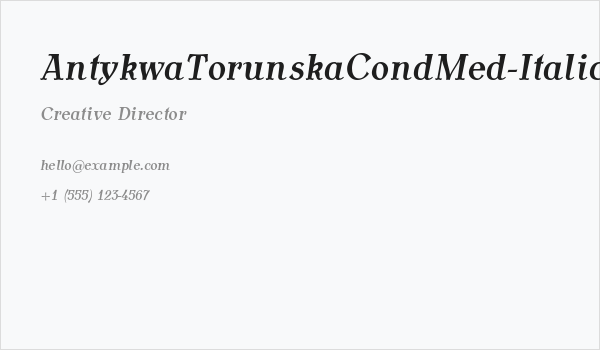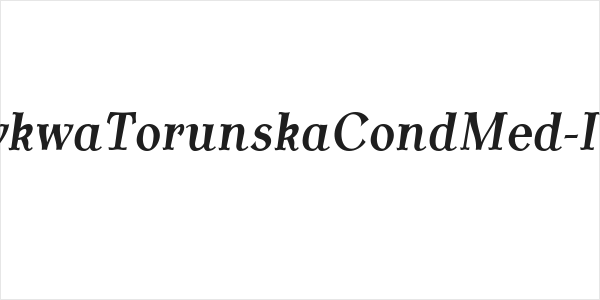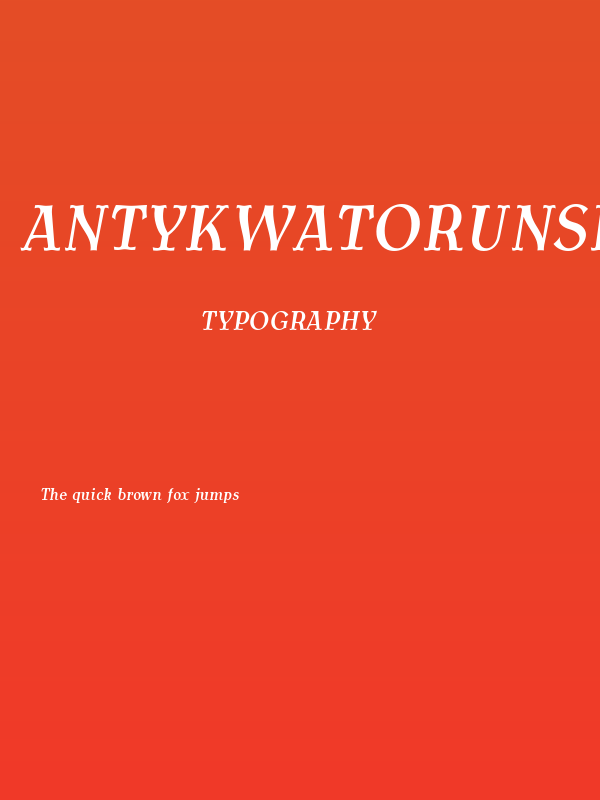
AntykwaTorunskaCondMed-Italic Font
AntykwaTorunskaCondMed-Italic Description
This font features a classic serif style with a condensed and italicized form, giving it a sophisticated and elegant appearance. The characters are well-defined with moderate contrast between thick and thin strokes, enhancing readability while maintaining a stylish flair. The serifs are pronounced yet not overly exaggerated, providing a balanced look. The italic slant adds a dynamic and flowing quality, making it suitable for both formal and creative applications. The numbers and special characters are consistent with the overall design, ensuring uniformity across different text elements.